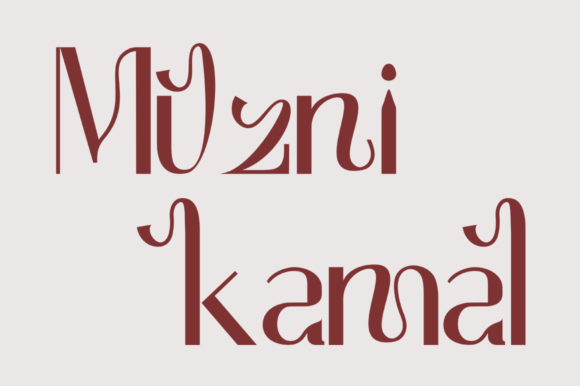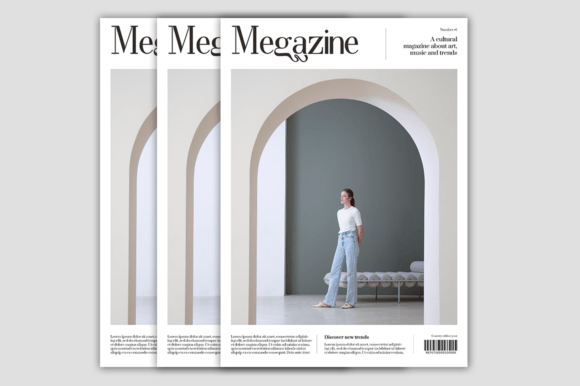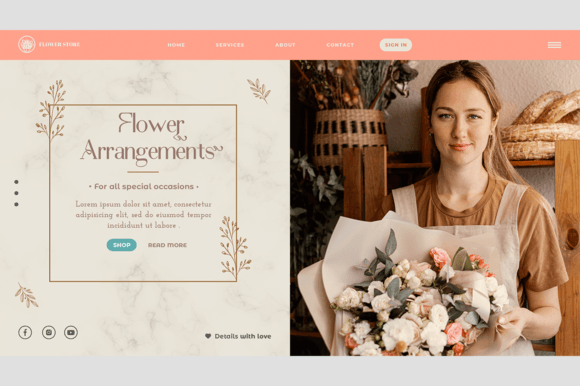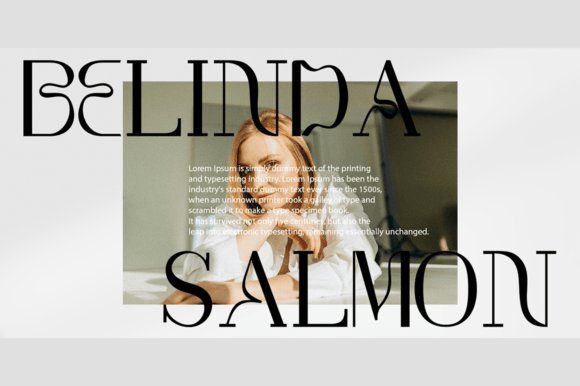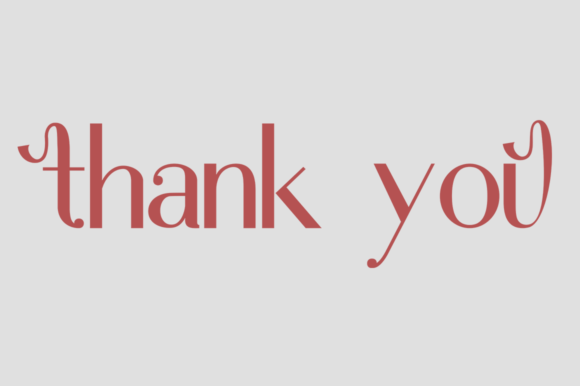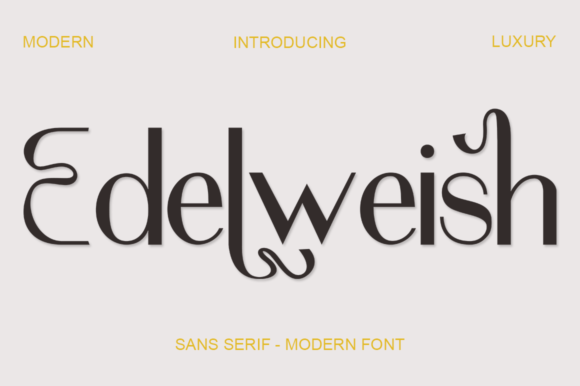
Introducing Edelweish Font: Elevate Your Typography with Elegance and Harmony
In the world of typography, a font can make all the difference in the aesthetic and feel of a design. For those seeking a touch of elegance and sophistication, Edelweish Font is an exceptional choice. This stylish OpenType rich serif font is designed to captivate with its unique and harmonious letterforms that seem to dance and twist together, creating visually stunning typography designs.
The Unique Charm of Edelweish
Edelweish Font stands out with its distinctive approach to serif typography. Each letter is crafted with meticulous attention to detail, ensuring that they can be combined in various ways to produce a wide range of beautiful and elegant designs. The font’s design philosophy revolves around the concept of harmony and fluidity, making it perfect for projects that demand a high level of sophistication and refinement.
Exploring OpenType Features
One of the key features that set Edelweish apart is its extensive collection of interwoven OpenType ligatures and alternates. With a large selection at your disposal, you have the flexibility to experiment with numerous typography styles, ensuring your final design is truly unique. OpenType features allow for a high degree of customization, enabling designers to achieve the perfect look for their projects. Whether you’re working on a luxury brand logo, a high-end product packaging, or an elegant wedding invitation, Edelweish provides the tools to create something extraordinary.
What are OpenType Ligatures and Alternates?
For those unfamiliar with the terms, OpenType ligatures and alternates are special features included in OpenType fonts. Ligatures are combinations of two or more characters that are joined together to form a single glyph, often used to improve the appearance of text by eliminating awkward character collisions. Alternates refer to different forms of a character that can be used interchangeably within a font, offering variety and the opportunity to add personality to your text.
Applications of Edelweish Font
The versatility of Edelweish Font makes it suitable for a wide range of applications. Here are a few ideas to get you started:
- Branding and Logos: Create a lasting impression with a custom logo that exudes luxury and sophistication.
- Packaging Design: Elevate your product packaging with elegant typography that stands out on the shelves.
- Wedding and Event Invitations: Add a touch of elegance to your invitations and save the dates.
- Web Design: Use Edelweish to create stunning headers, titles, and quotes for your website, adding a touch of class to your online presence.
- Print Design: From brochures and magazines to posters and flyers, Edelweish can enhance any print design project.
Why Choose Edelweish Font?
With so many fonts available, why choose Edelweish? The answer lies in its unique blend of elegance, versatility, and the creative possibilities it offers. Edelweish is not just a font; it’s a design tool that provides the means to create something truly special. Its OpenType features, combined with its stylish and harmonious letterforms, make it an invaluable asset for designers and crafters looking to elevate their typography.
Edelweish Font is a remarkable addition to any designer’s toolkit. Its elegant and harmonious design, coupled with a rich set of OpenType features, makes it the perfect choice for those seeking to create sophisticated and unique typography. Whether you’re a professional designer or a crafty DIY enthusiast, Edelweish invites you to explore new creative horizons and transform your designs with its stylish serif charm.